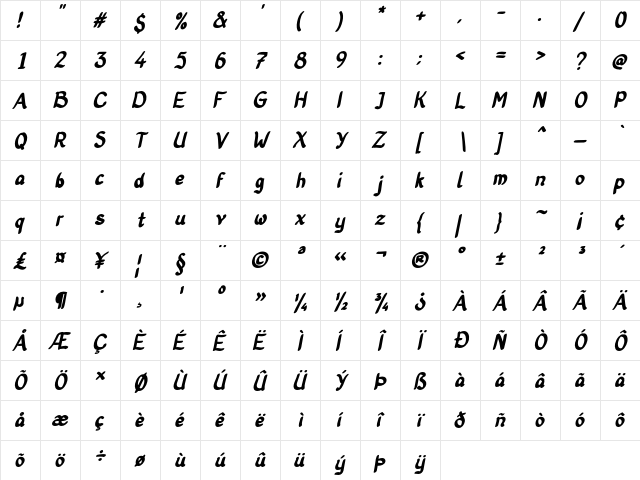
Old Story Bold Italic
Design Context for Old Story Typeface
Old Story is a composed and adaptable typeface that performs quietly and consistently across a wide range of design contexts. The dynamic lean of this cut emphasises speed and emphasis in any layout. Its bold stroke weight gives it real presence on the page.
Pro Tip: Try Old Story for annotation and caption copy alongside an upright companion — the contrast in angle creates a dynamic but ordered typographic system.